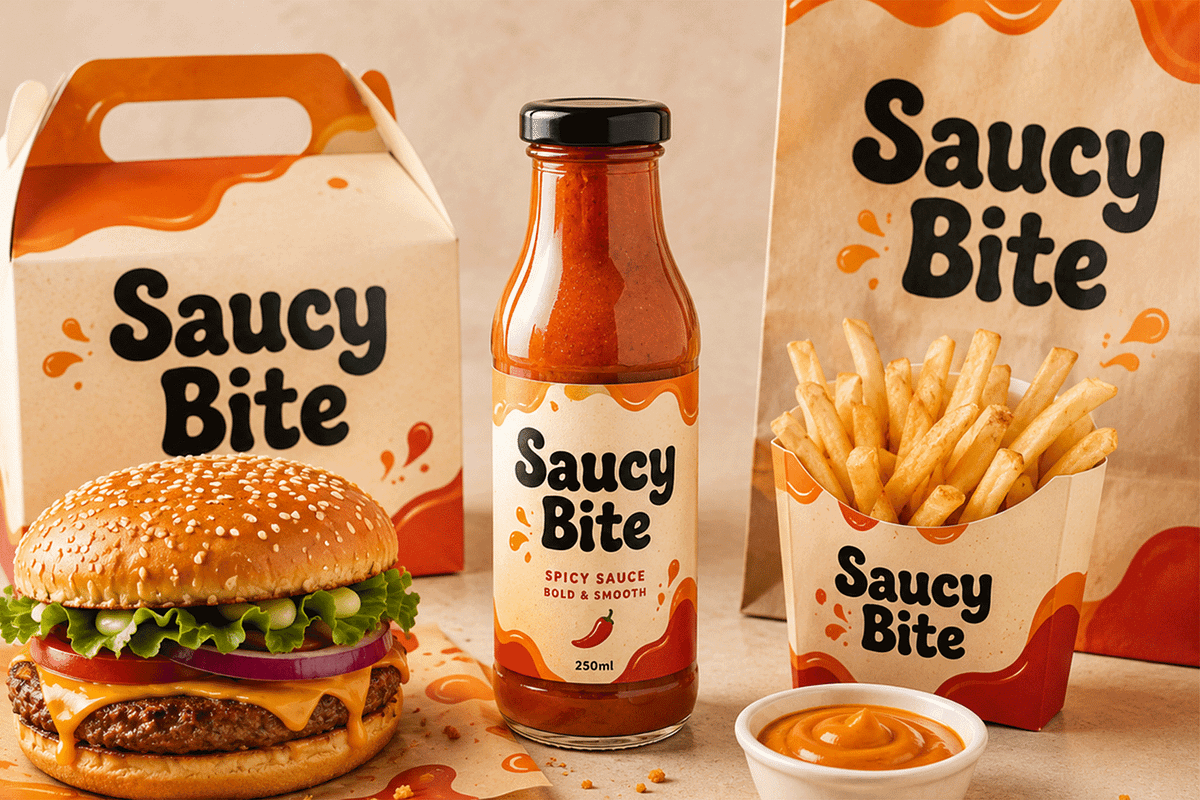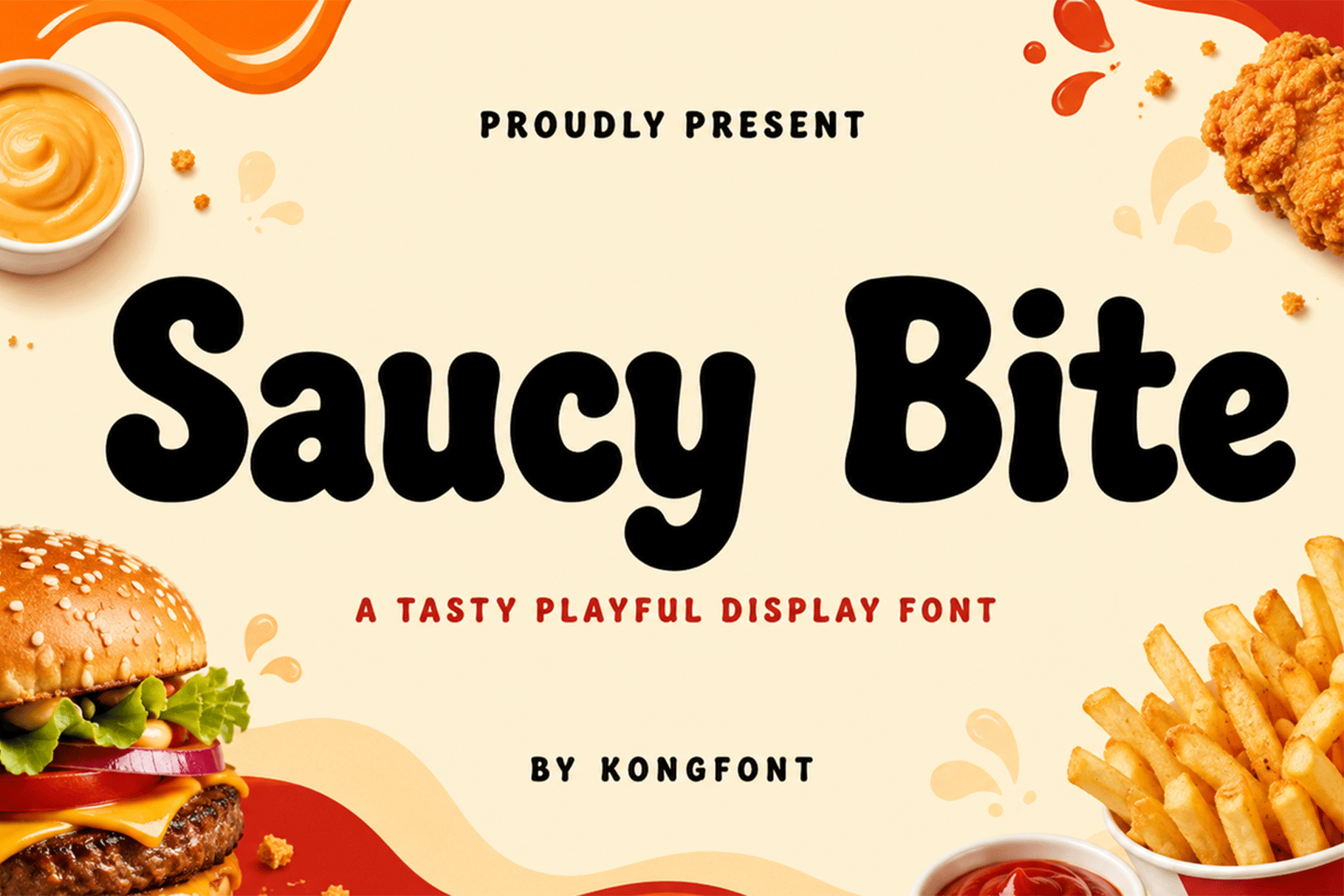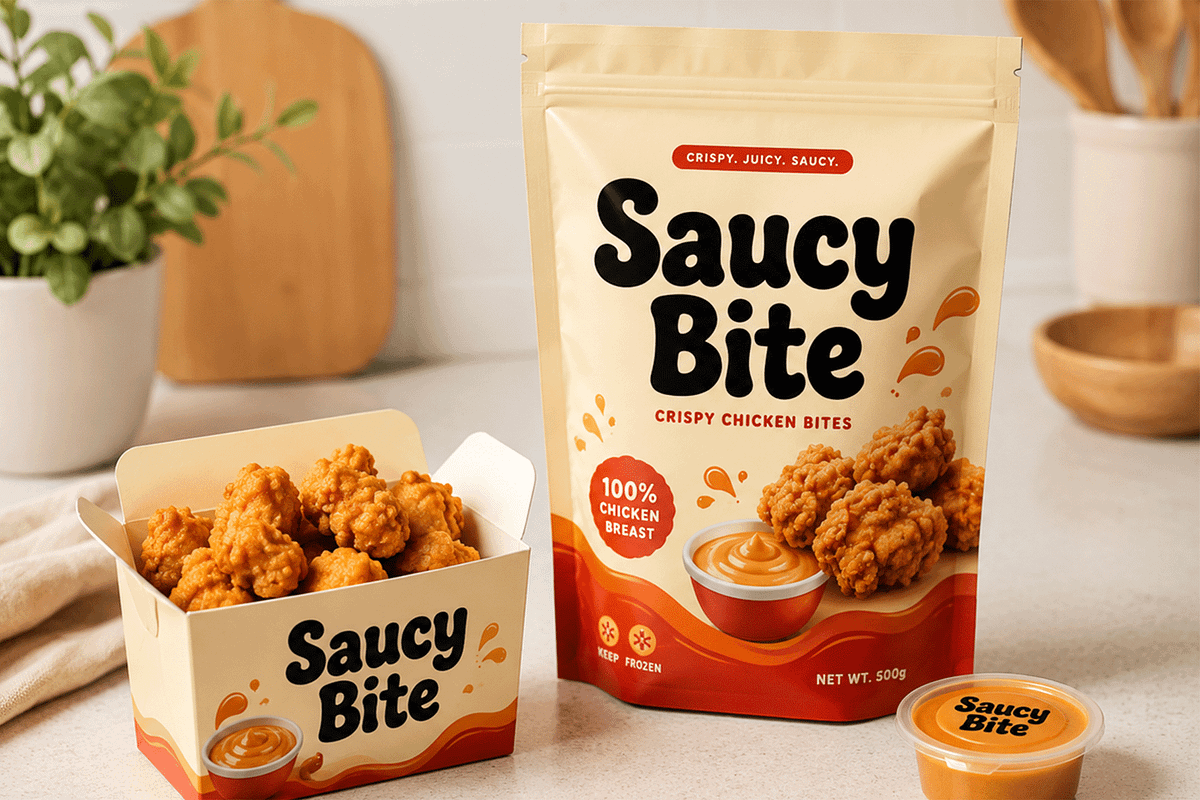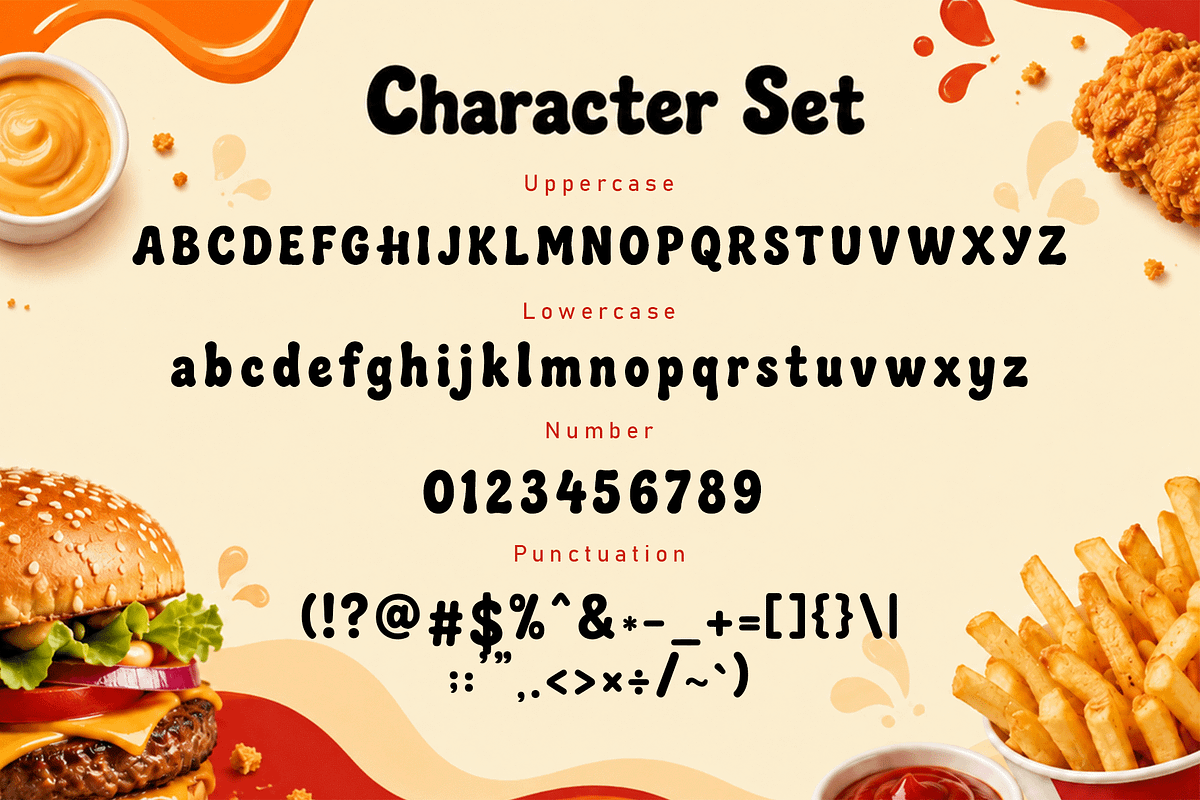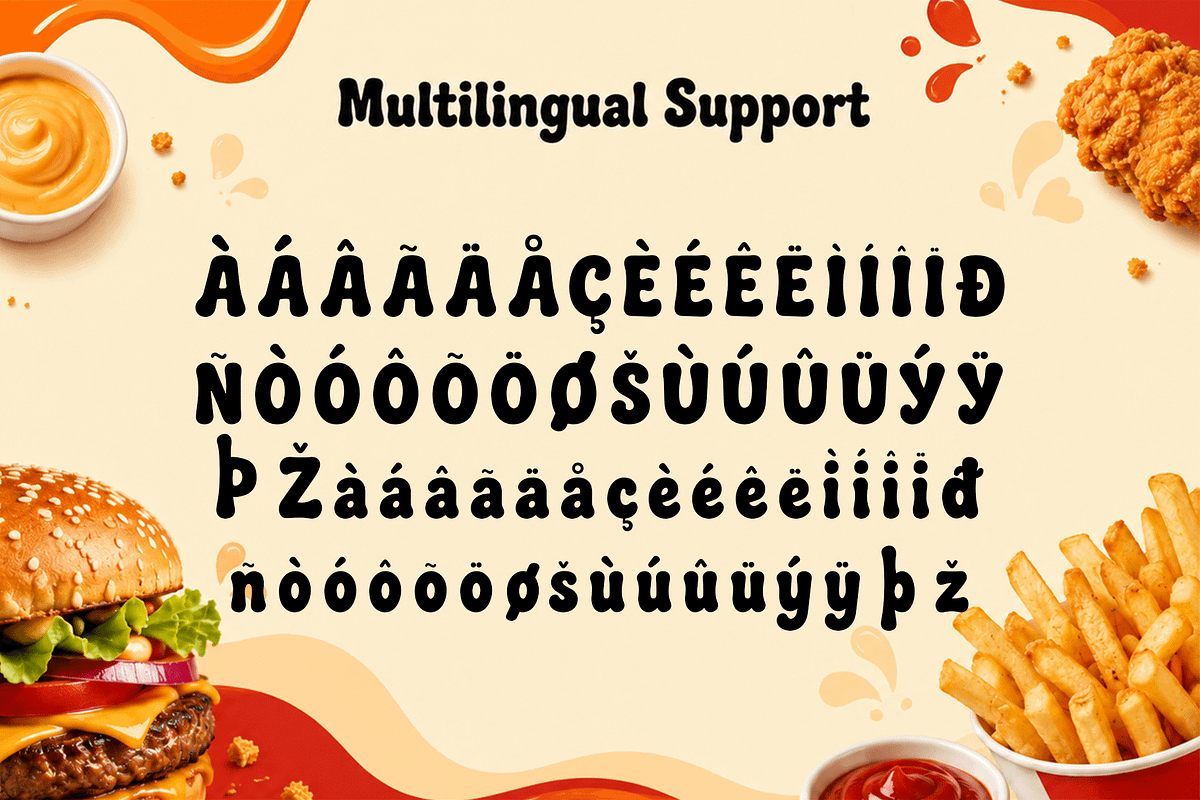
Saucy Bite - Playful Display Font
Saucy Bite - Tasty Playful Display Font
Meet "Saucy Bite," a tasty playful display font created with bold rounded shapes, soft curves, and a fun food inspired personality. Its chunky letterforms give every word a friendly and appetizing appearance, making it a perfect choice for designs that need to feel energetic, casual, and deliciously memorable.
Saucy Bite is especially suitable for burger shops, food trucks, cafés, snack brands, restaurants, street food businesses, kids’ meals, beverage packaging, and casual dining identities. Its bold personality helps food related designs feel lively, welcoming, and instantly recognizable.